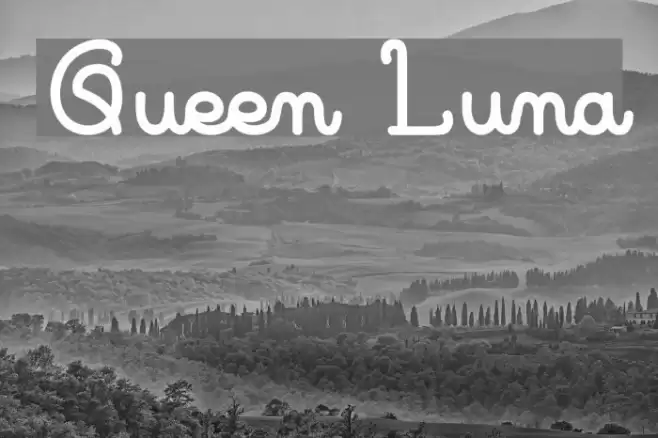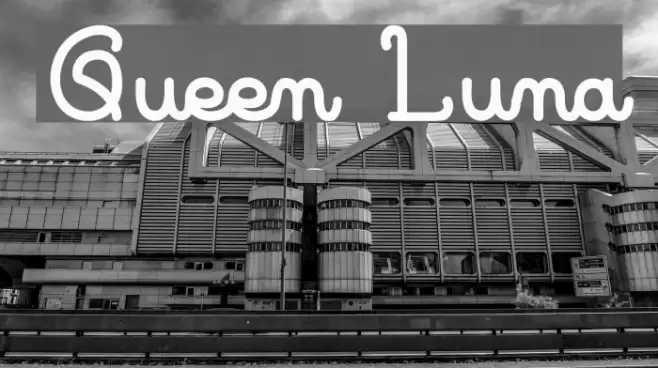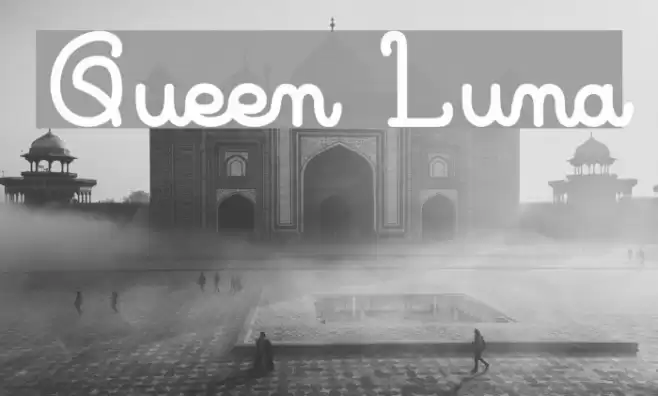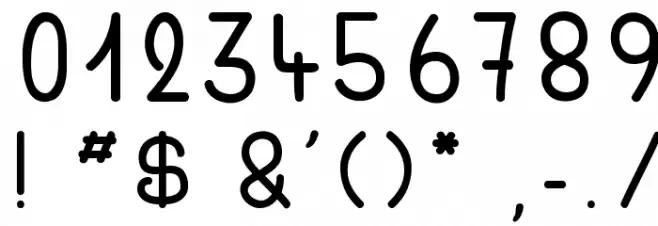
Queen Luna Font
Queen Luna Description
This playful and whimsical font features a handwritten style with rounded edges and a casual, friendly appearance. The uppercase letters are bold and slightly condensed, while the lowercase letters have a charming, flowing script quality. The numbers are clear and easy to read, maintaining the same playful aesthetic. Special characters are consistent with the overall style, adding to the font's versatility. The font's unique character is defined by its smooth curves and consistent stroke width, making it suitable for a variety of creative projects.
A playful, handwritten font with rounded edges and a whimsical style from Uncategorized fonts.
- Proposed Projects: Ideal for children's books, greeting cards, playful branding, and creative social media graphics.
- Overall Style: Playful
- Use Case: Logos, Headlines, Creative projects